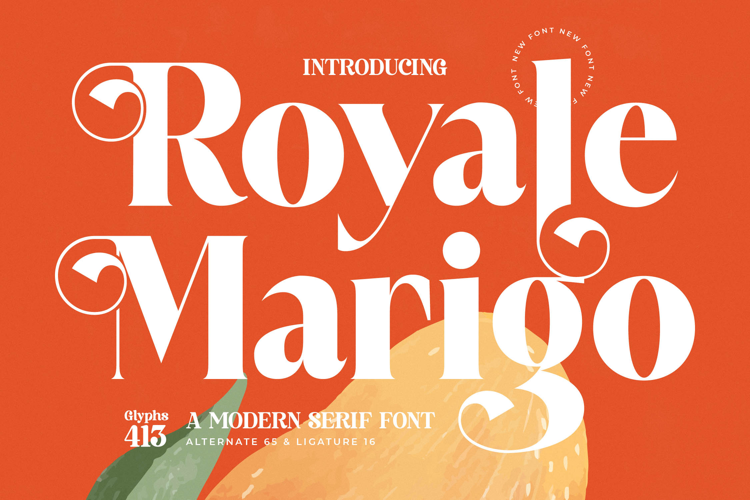
Royale Marigo - Modern Serif Font
Elevate your design projects with the distinctive elegance of Font Royale Marigo - Modern Serif Font Serif Display. This exquisite typeface masterfully blends traditional serif sophistication with a bold, contemporary flair, creating an instantly recognizable aesthetic. Its high-contrast strokes and refined letterforms command attention, making it the perfect choice for impactful visual statements that resonate with discerning audiences. Discover a font that redefines modern luxury.
Unleash unparalleled design versatility across a spectrum of creative endeavors. Font Royale Marigo - Modern Serif Font Serif Display is more than just a beautiful typeface; it’s a powerful tool for visual storytelling. Featuring a rich set of 413 glyphs, including 65 stylistic alternates and 16 ligatures, it provides designers with extensive options to craft truly unique typography. Its contemporary appeal ensures your message remains fresh and captivating.